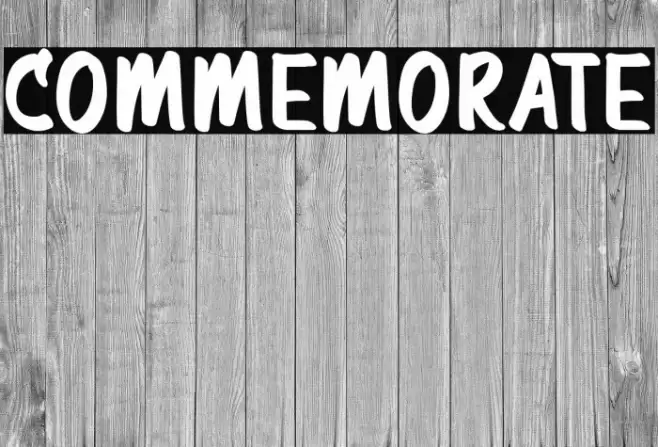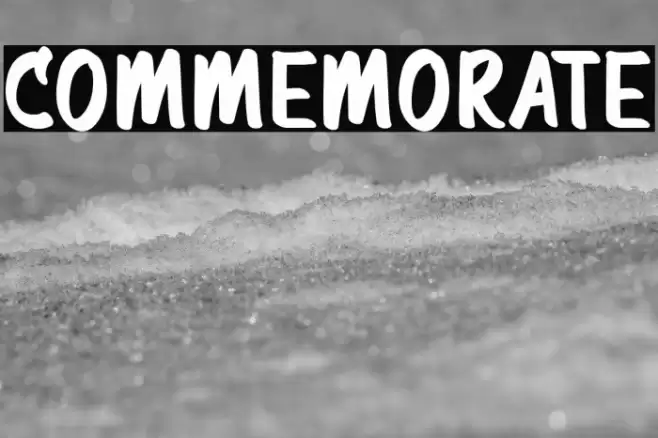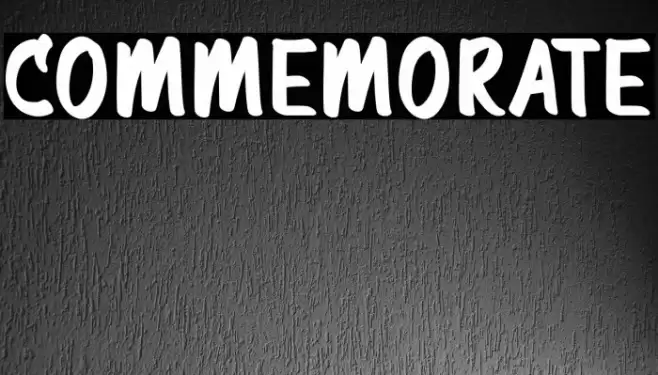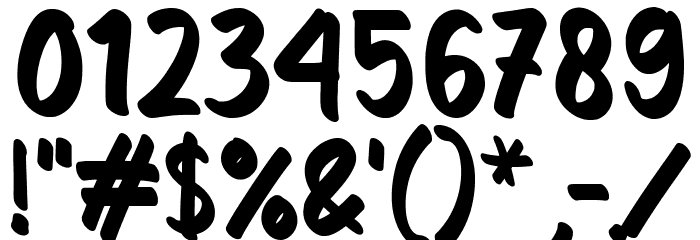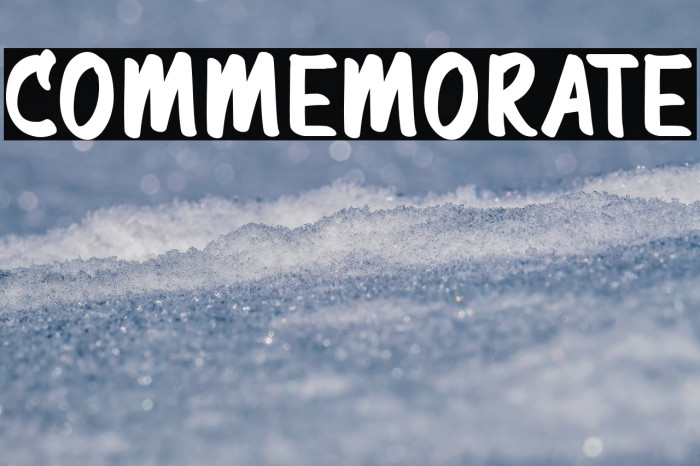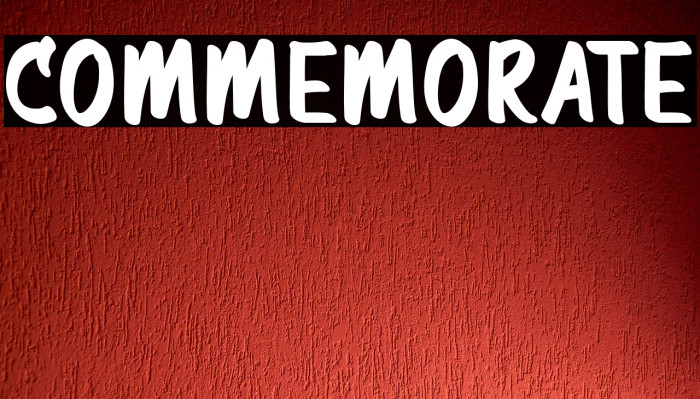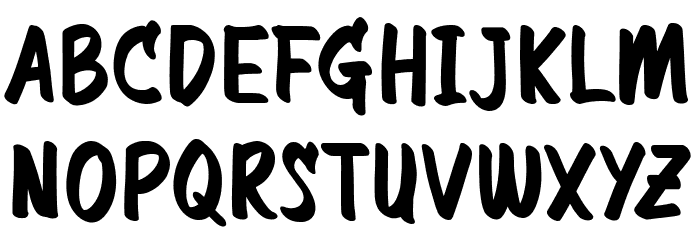
Commemorate Font
Commemorate Description
This font features a bold and playful handwritten style, characterized by its thick strokes and slightly irregular shapes that give it a casual, friendly appearance. The uppercase and lowercase letters maintain a consistent weight, providing a cohesive look across the alphabet. The numbers and special characters are designed with the same playful aesthetic, making them suitable for a variety of informal contexts. The overall design is approachable and lively, making it ideal for projects that require a personal touch.
A bold, playful handwritten font with thick strokes and a casual style from Comic fonts.
- Proposed Projects: Ideal for greeting cards, children's books, playful branding, and casual event invitations.
- Overall Style: Playful
- Use Case: Headlines, Logos, Informal Text